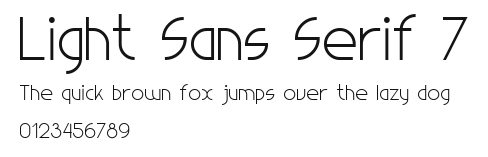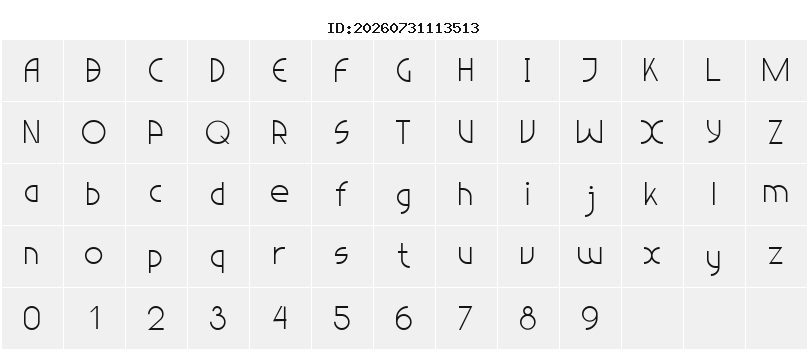
• Font Name: Light Sans Serif 7
• Designer: Sizenko Alexander
• Manufacturer: Style-7
About Light Sans Serif 7.ttf
Light Sans Serif 7.ttf is a modern, elegant sans-serif font designed for ultimate readability and visual harmony. Perfect for branding, headlines, web design, and print materials.